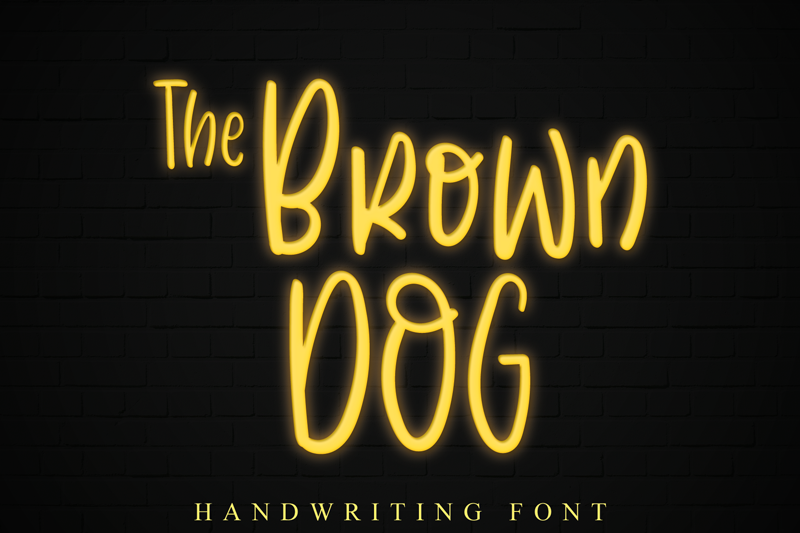
Font name: | The Brown Dog |
The Brown Dog is a fun and playful handwritten font. Clean and a little bit quirky, this font is the perfect fit for all of your logos, branding, social media, and crafty DIY projects. Attention : The Brown handwriting Font is prohibited to use this font for commercial purposes or for profit without the permission of the author/admin, without being known to use this font without permission, will be subject to sanctions 5x the specified price. This font is used only for demos (Demo license) If you want to use this font for commercial use please contact email: erikluluk0@gmail.com or click the link below: https://www.creativefabrica.com/product/the-brown-dog/ref/745146/ If you want to see more other fonts, please click:https://www.creativefabrica.com/designer/erik-studio/ref/745146/ Any donations are very appreciated. Paypal account for donation: https://paypal.me/erikstudio1 thanks. |